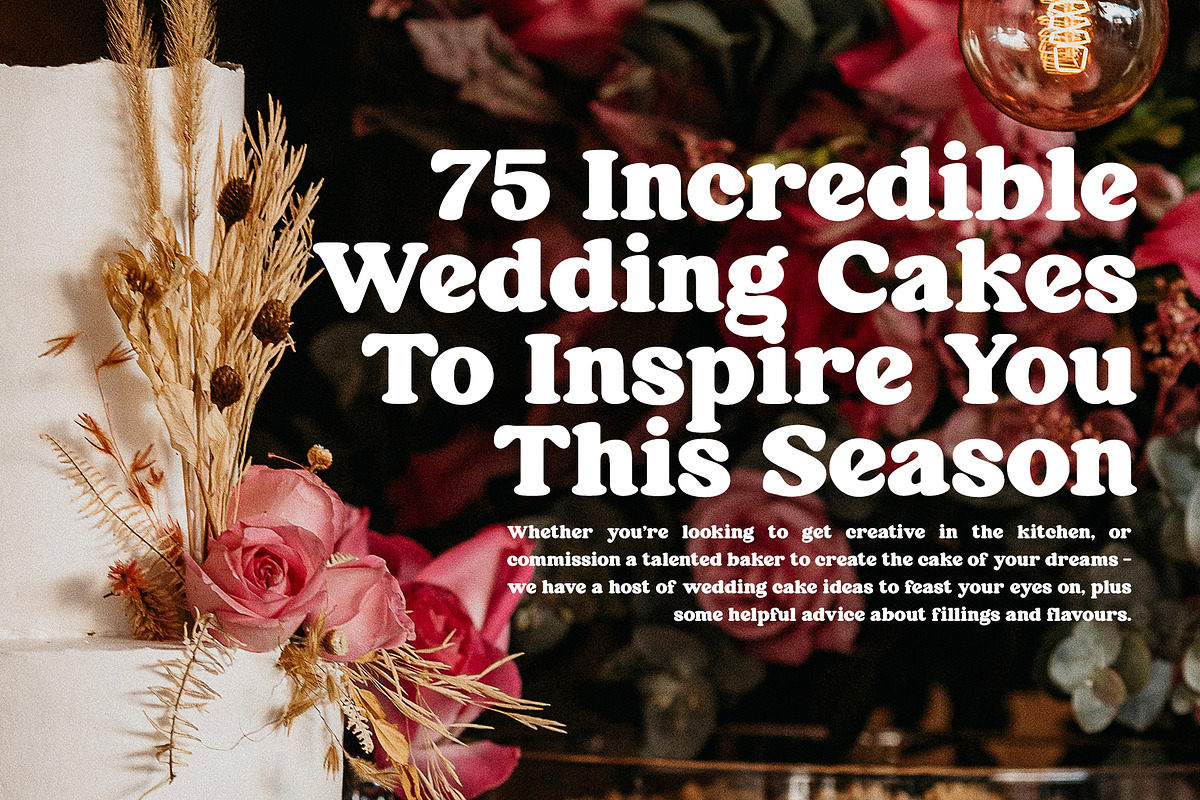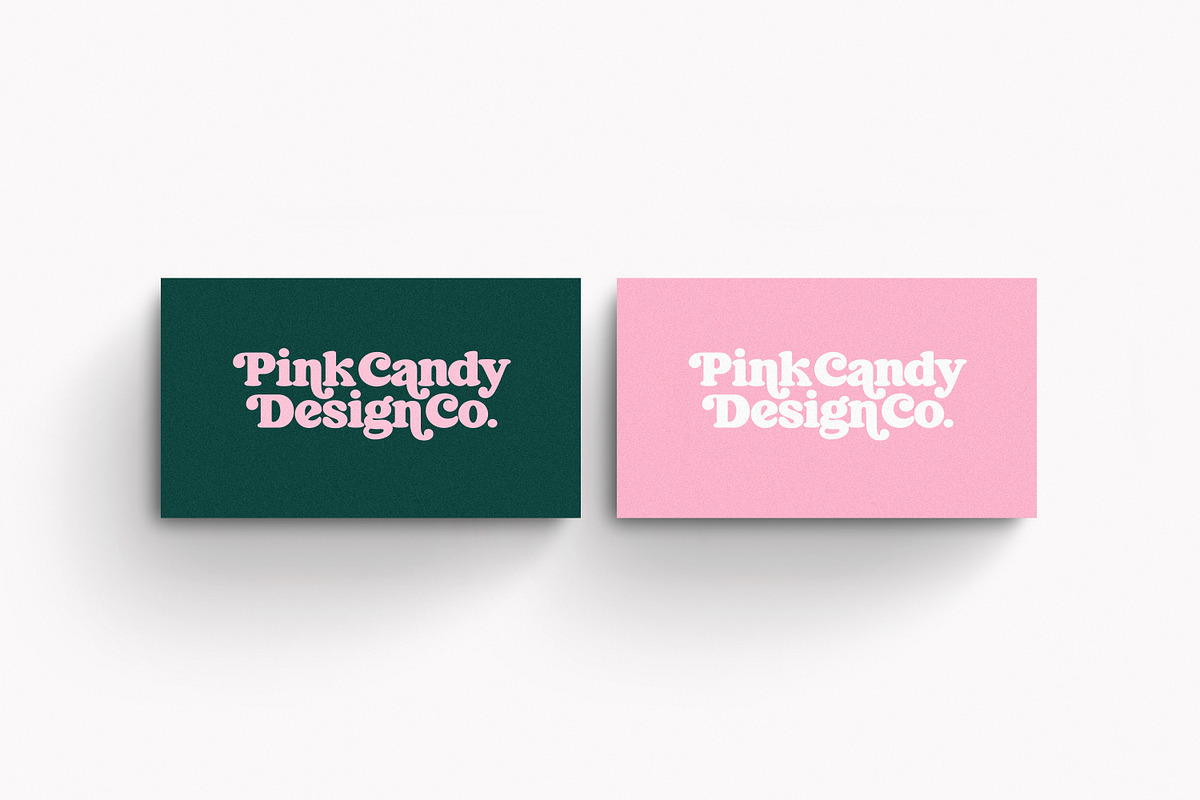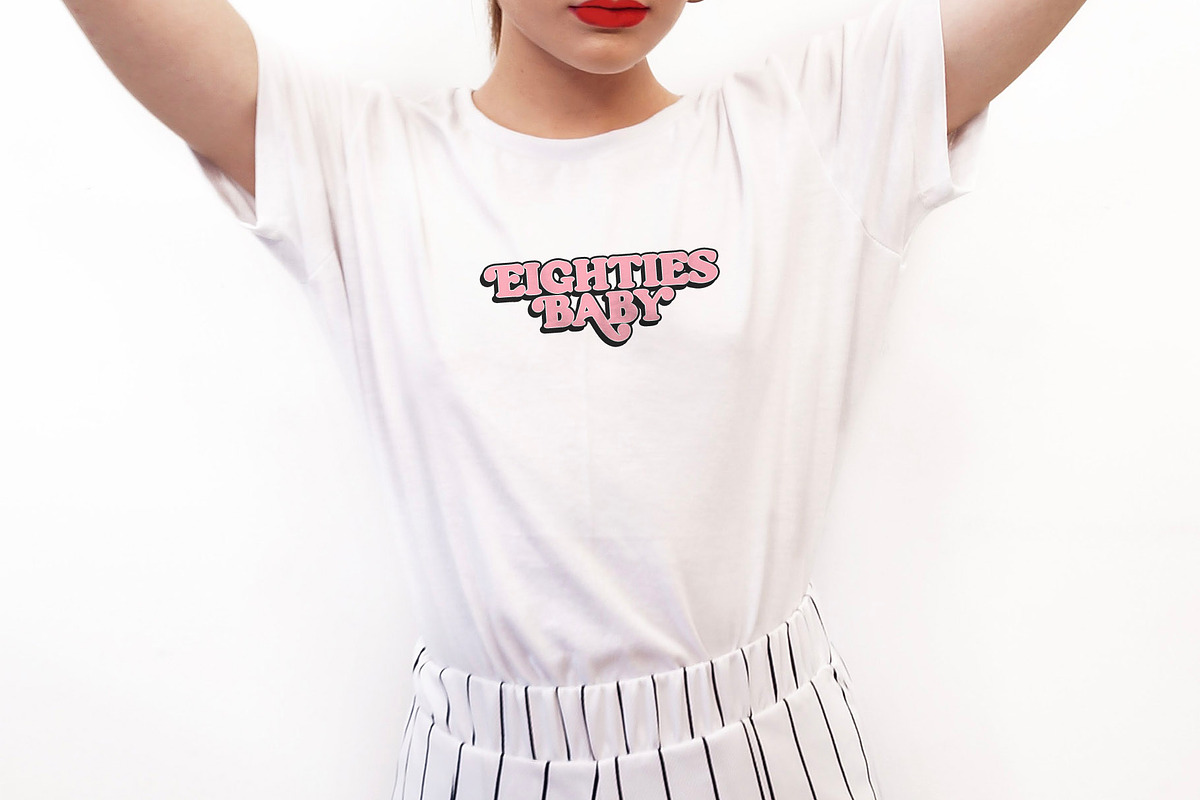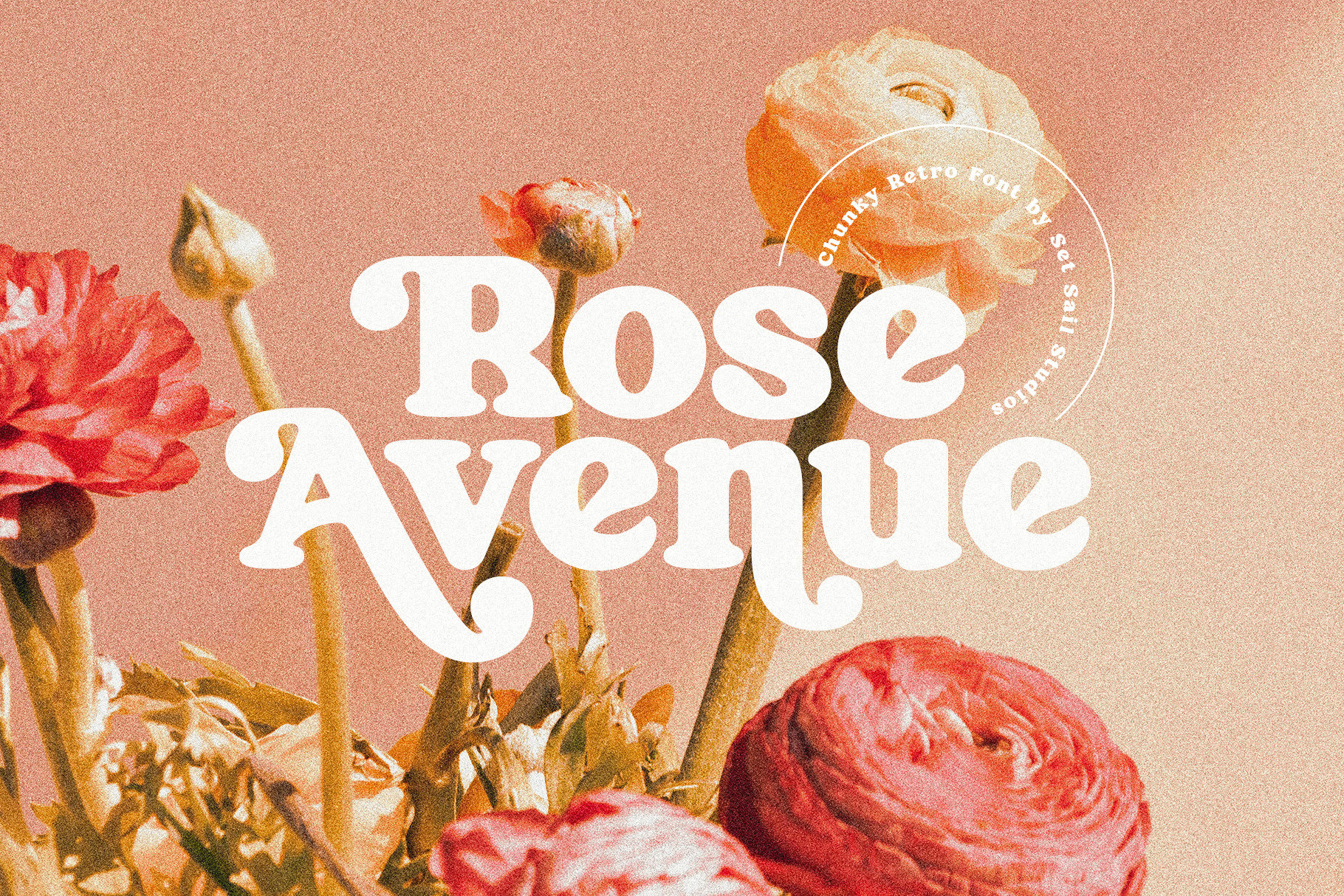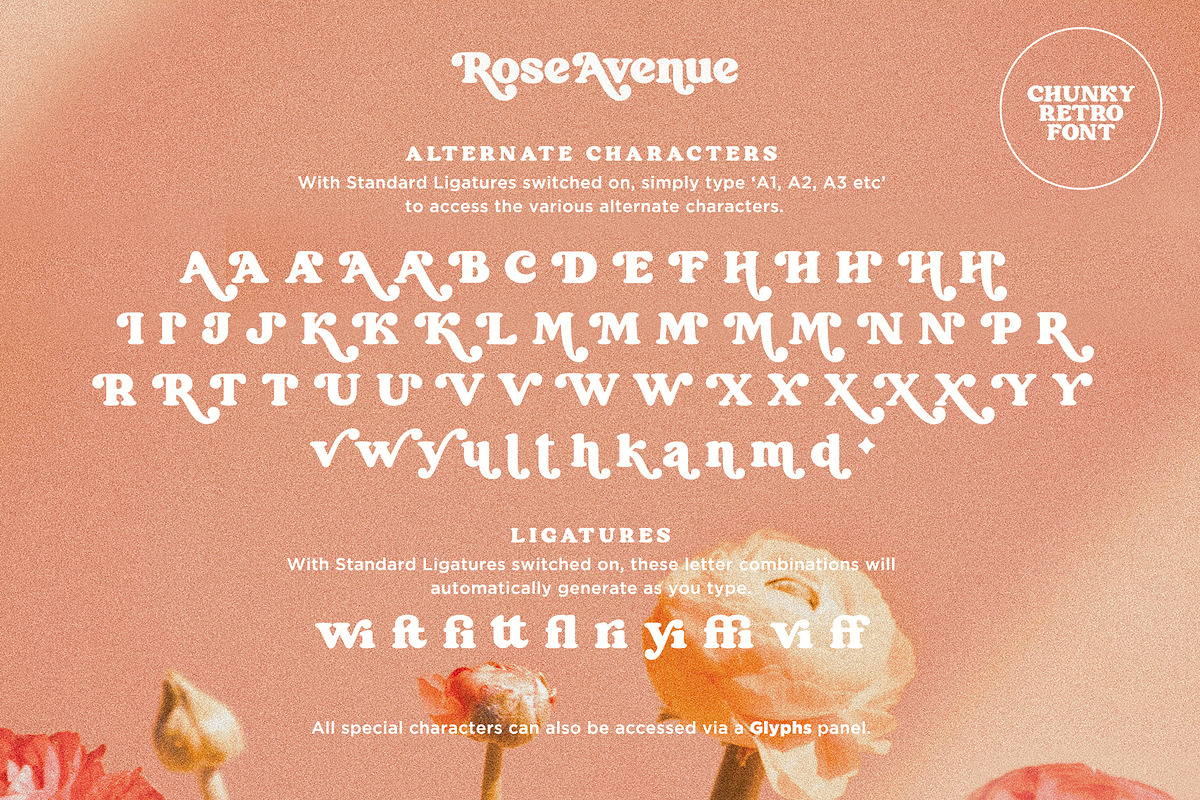
Introducing Rose Avenue, an extra bold serif font with soft, charming rounded edges and curves. Rose Avenue brings chunky retro typography to the modern era, and includes 70 additional special characters with additional flair and flourishes - providing you with a variety of captivating custom text arrangements. Whether it's a fancy retro-inspired logo, or engaging bold header text - Rose Avenue is able to deliver.
Accessing Alternate Characters • Many letters of this font have multiple alternate versions (see final image). In order to access each one, simply make sure 'Standard Ligatures' are enabled, and follow your letter with a number. For example, typing 'A1, A2, A3, A4, A5' will generate the 5 alternate versions shown for capital A.
Accessing Ligatures • There are 10 lowercase ligatures (double letters) included. In order to access these, simply make sure 'Standard Ligatures' are enabled, and the ligatures will automatically generate as you type.
All special characters can also be accessed via a Glyphs panel.